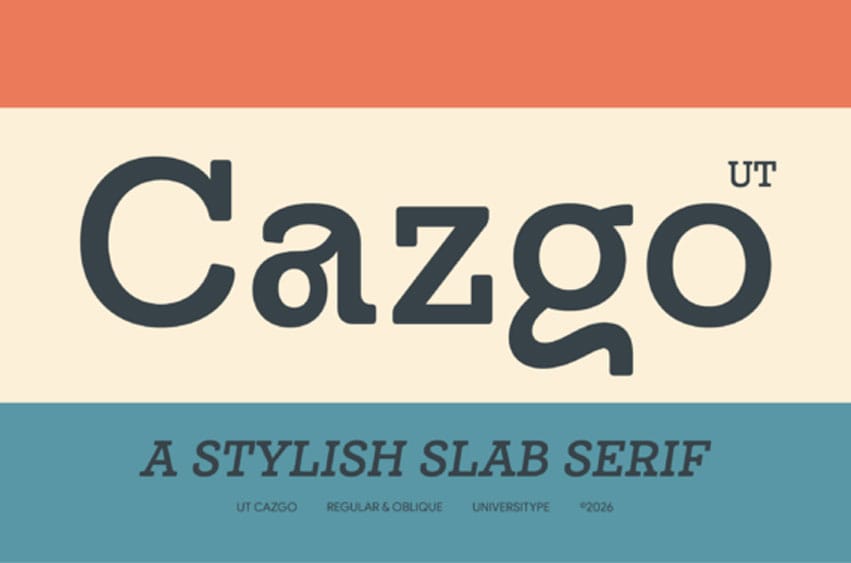
Ut Cazgo Font is a welcoming slab serif font that delights with gentle bends and understated, handcrafted nuances. This robust typeface marries durability with a laid-back, inviting demeanor, finding its niche within artisan branding, packaging, and engaging editorial titles.
Offered in Regular and Oblique forms, enriched by stylistic variants and ligatures, UT Cazgo breathes a recognizable sensory, analog quality into an array of print and digital applications. Accentuating the artisanal details in your project, UT Cazgo is the font that blends reliability and relaxed charm.